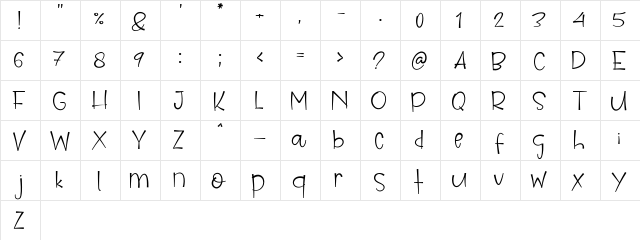
Parise Regular
| Foundry | Suzuran |
| Designer | Suzuran |
Design Context for Parise Typeface
Parise takes a measured approach to typography — its balanced proportions and neutral character make it a reliable workhorse for both digital and print work.